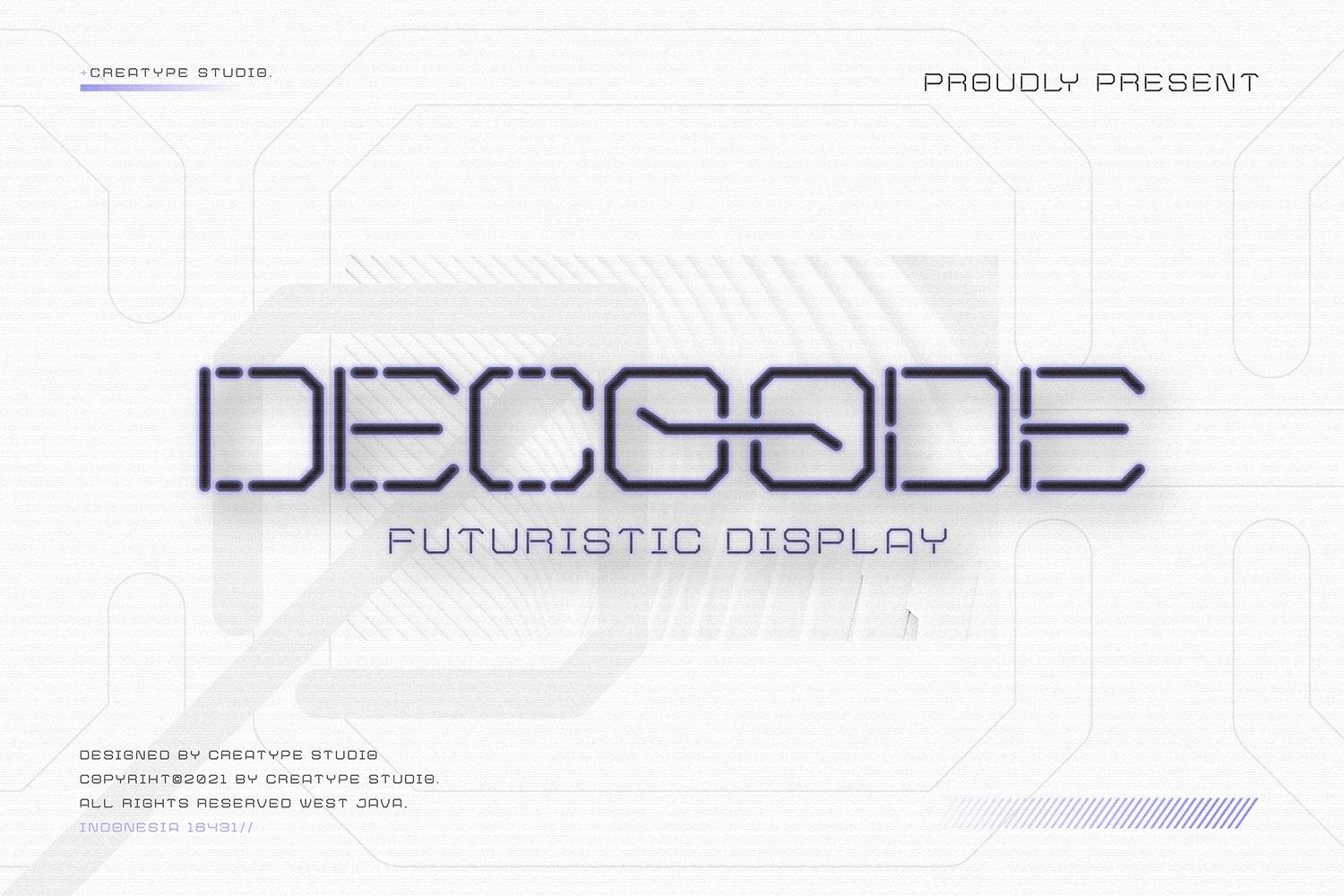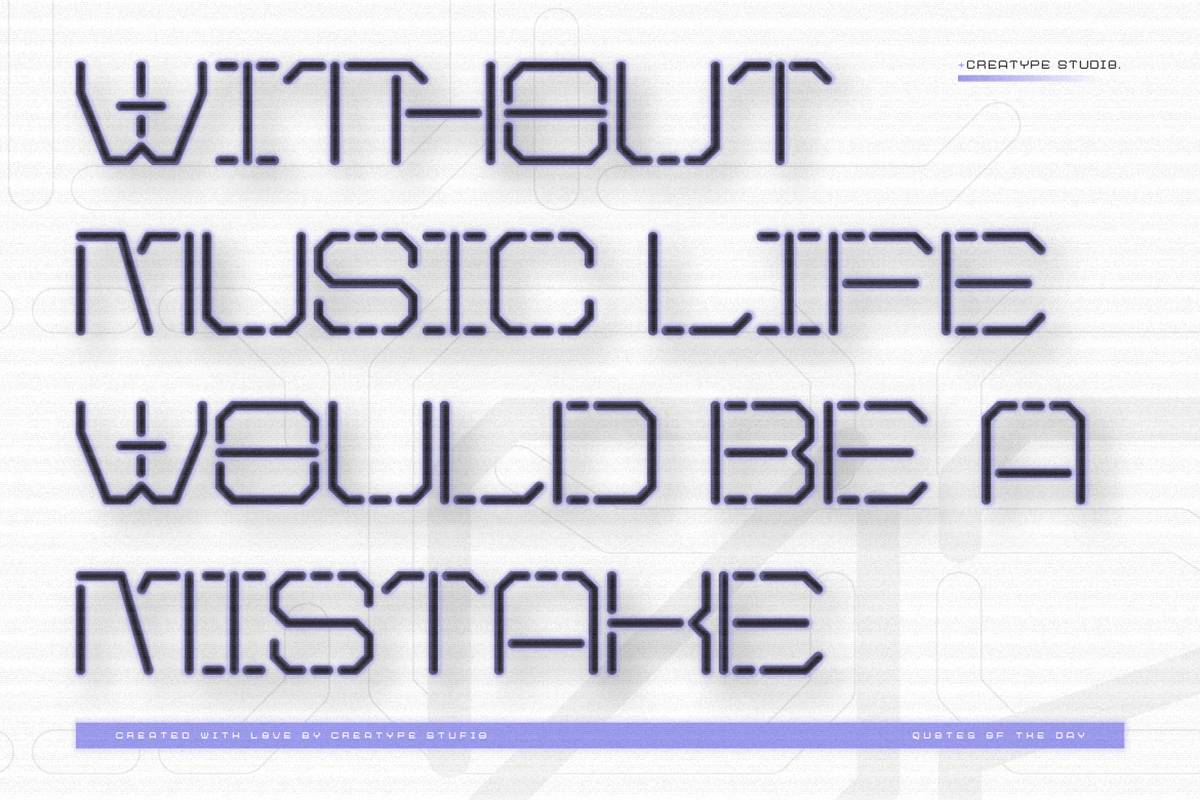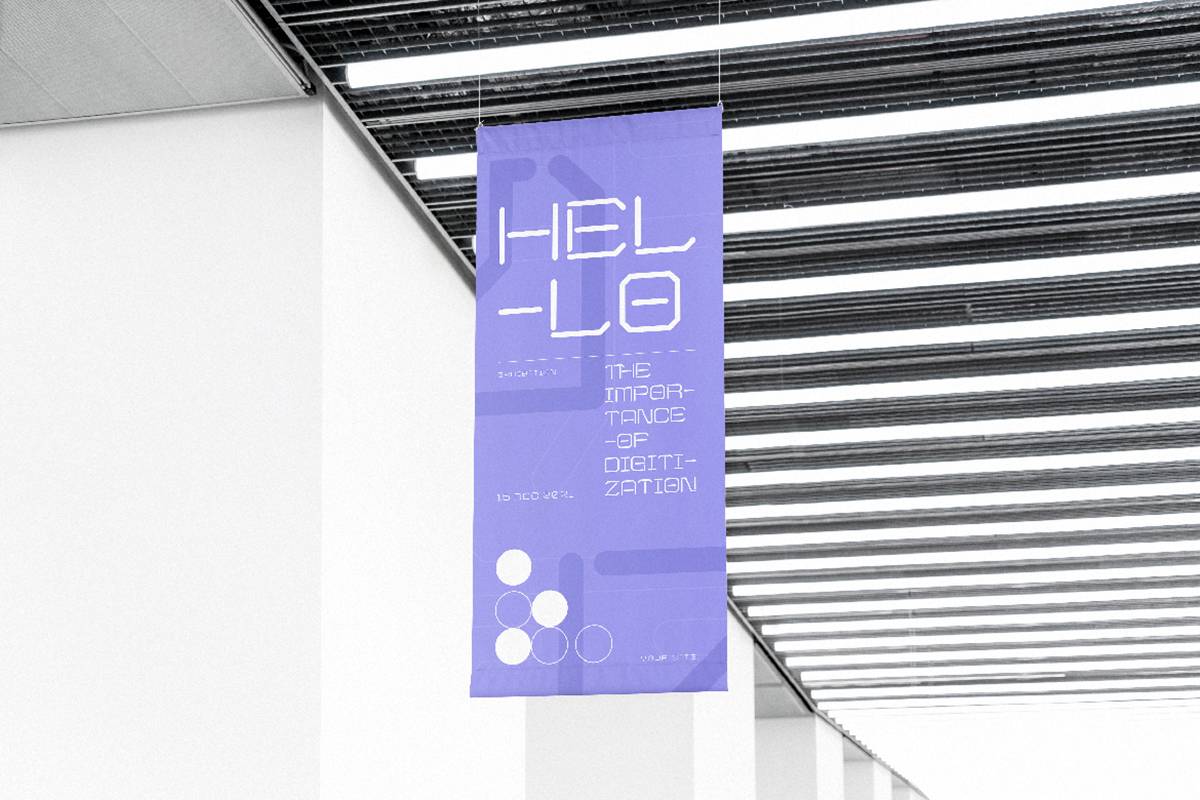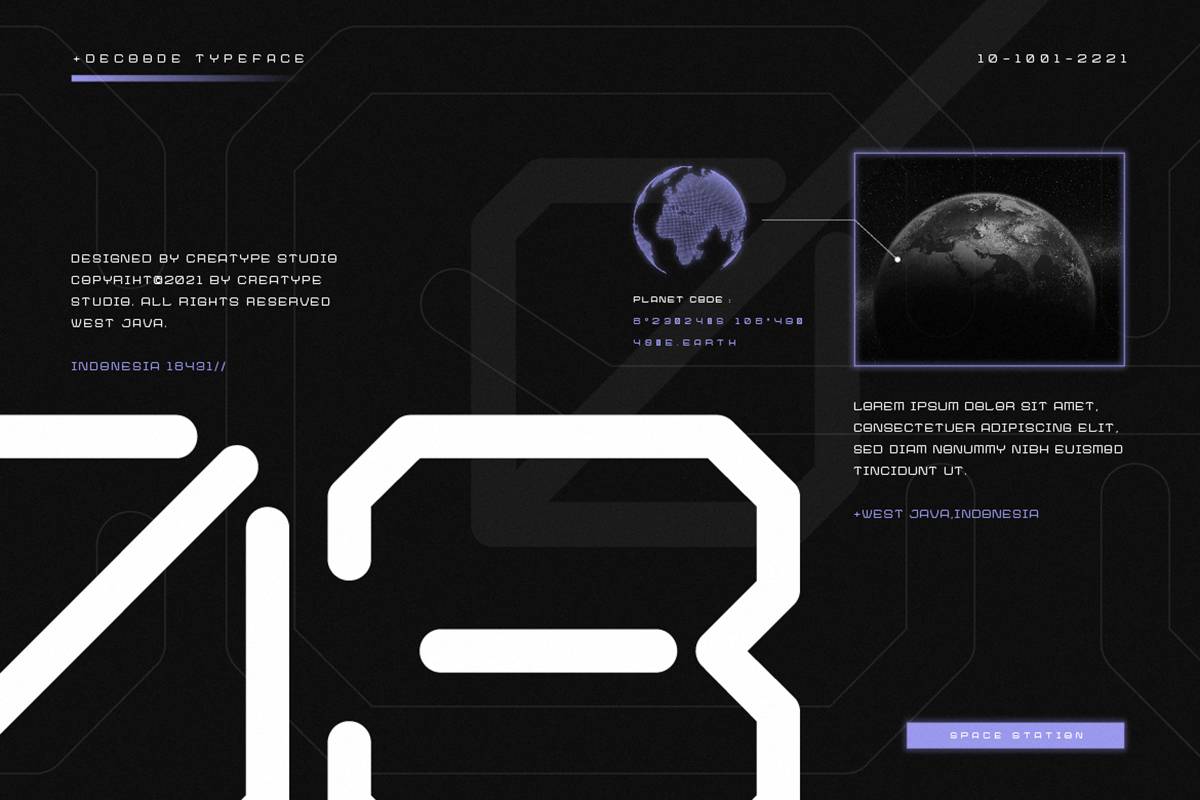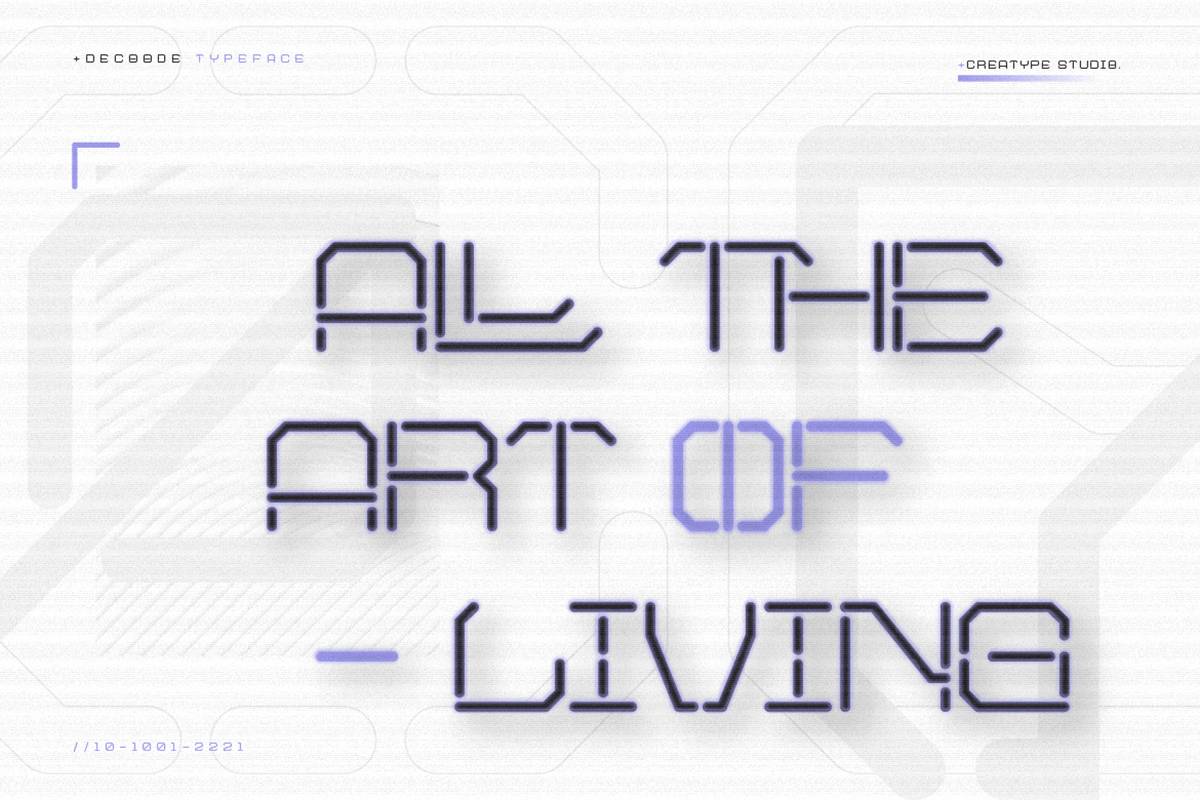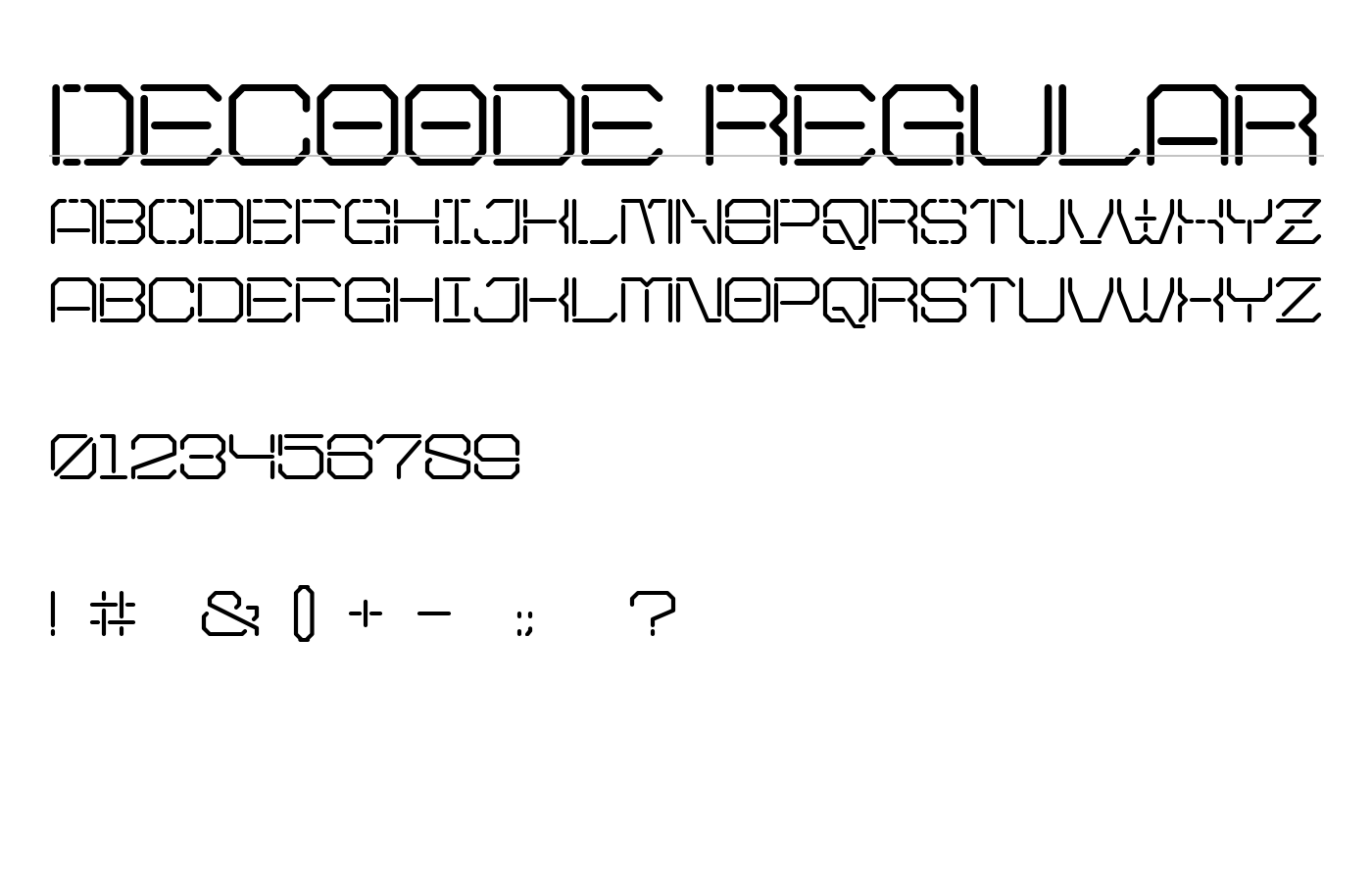
Decoode is a futuristic, geometric sans serif font characterized by its thin, evenly spaced strokes and modular, almost digital-inspired design. It features sharp corners and consistent line weights, giving it a clean, technical look that suits high-tech branding, digital interfaces, and modern posters. This font works best in display contexts where a sleek, innovative style is desired.
Decoode Font
About Decoode Font
| Font family | Decoode Font |